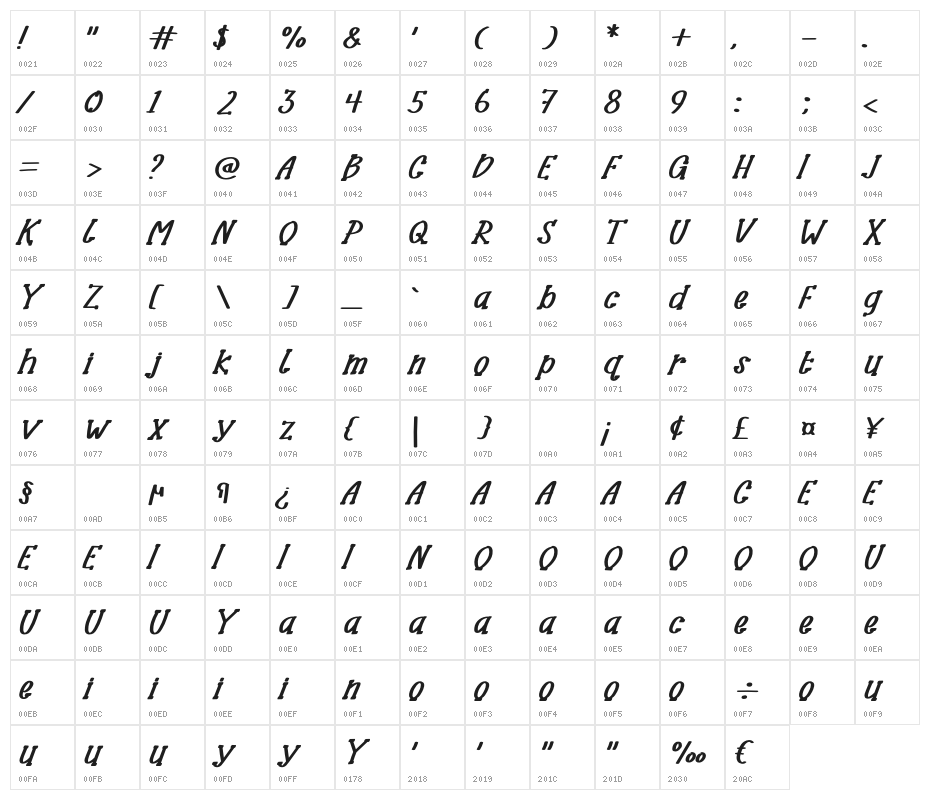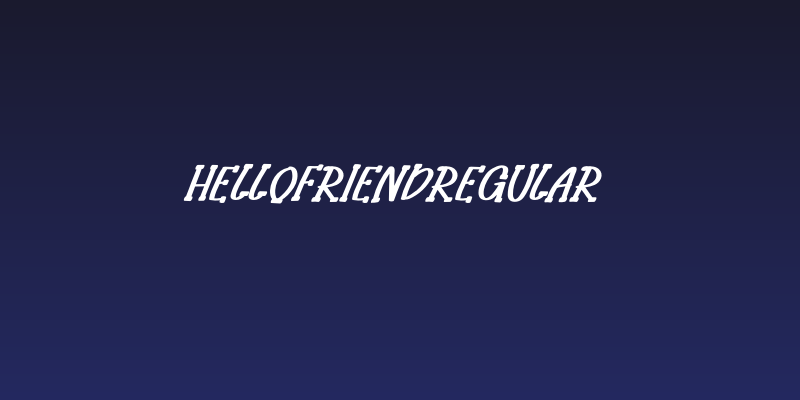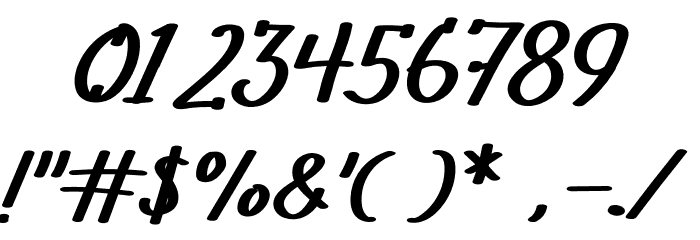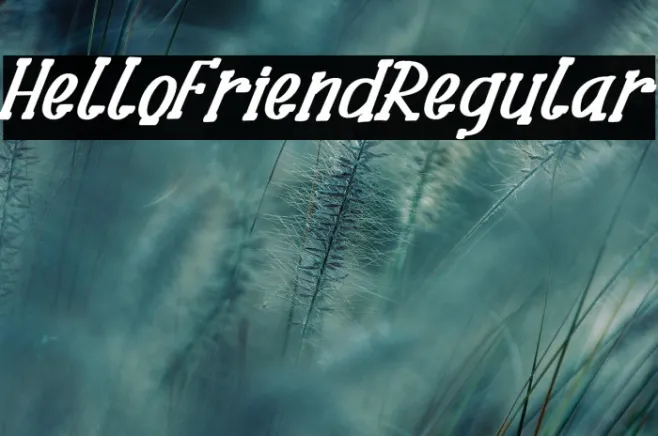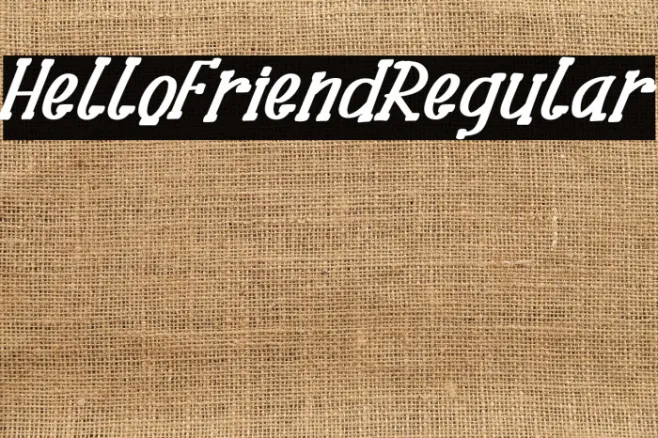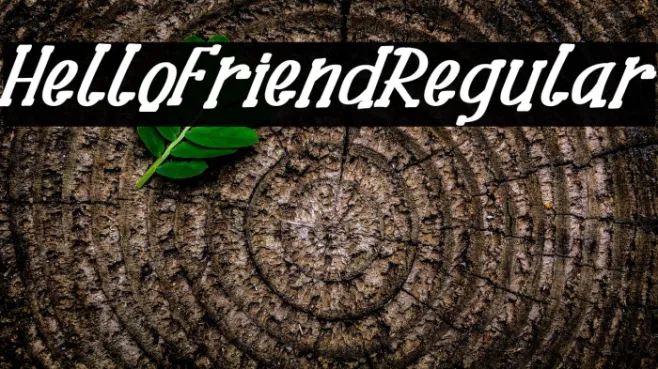
HelloFriendRegular Font
HelloFriendRegular Description
This font exhibits a bold and dynamic script style with a strong presence. The characters are slightly slanted, giving a sense of movement and fluidity. The strokes are thick and consistent, providing a robust appearance. The uppercase letters are tall and commanding, while the lowercase letters maintain a cohesive flow. The numerals are clear and legible, matching the overall boldness of the font. Special characters are well-integrated, maintaining the same stylistic approach. This font is suitable for projects that require a strong and impactful visual statement.